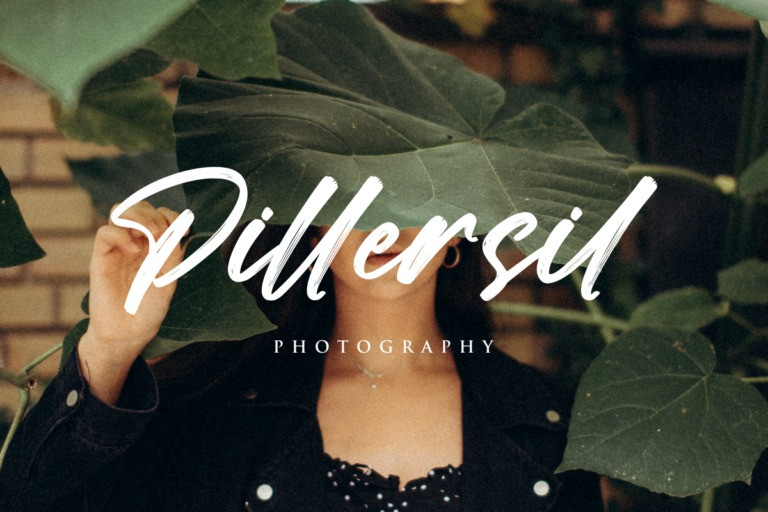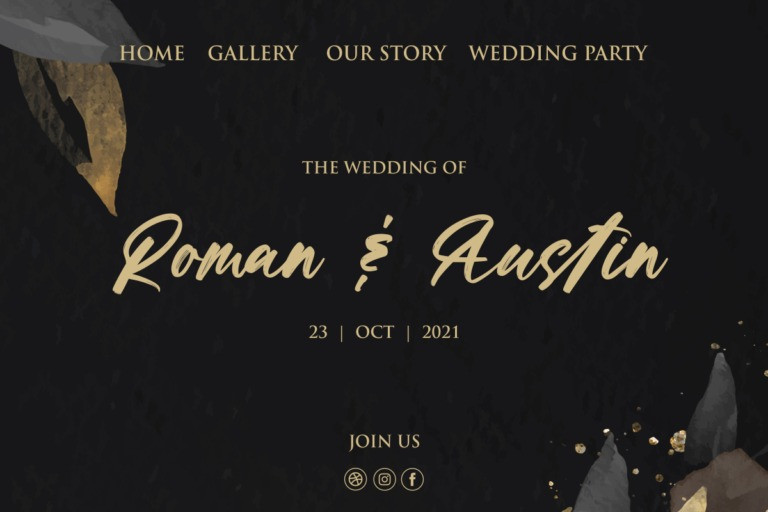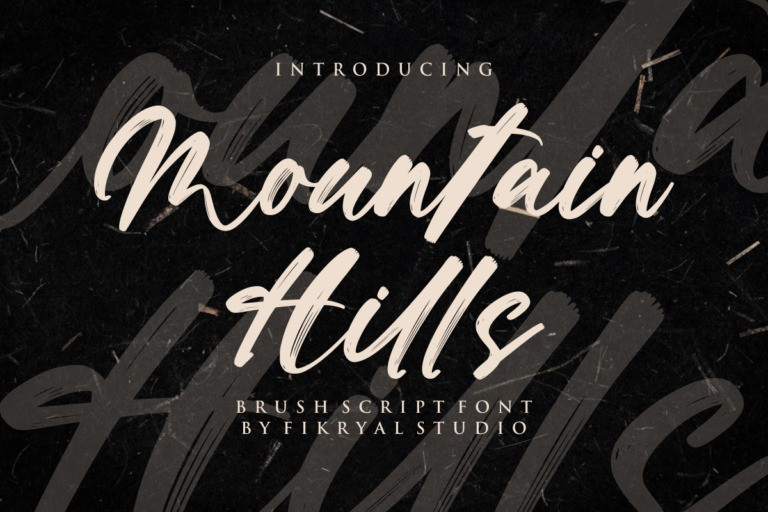
Mountain Hills Font
Mountain Hills Brush Font is a Hand brush Script Font. This font is made in a modern style, casual, strong, elegant, and suitable for your various design needs. it’s perfect for logo, branding, title, social media posts, advertisements, product packaging, product designs, label, photography, watermark, special event, magazine, web design, etc.